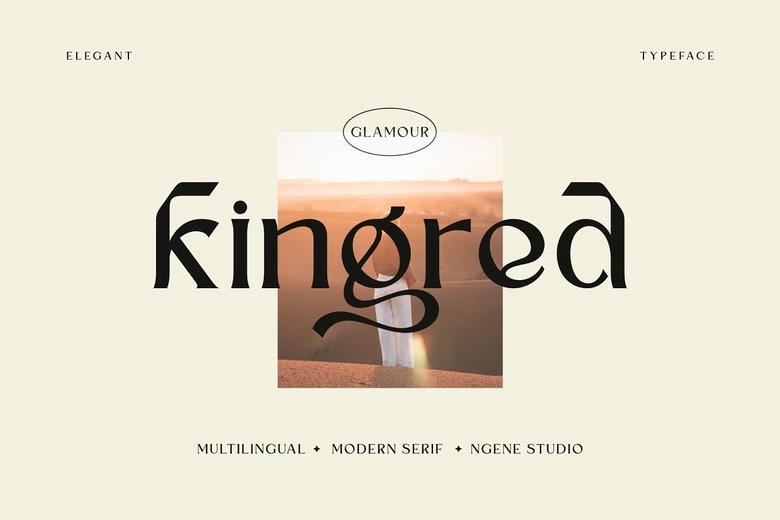
Kingred Font
Kingred is a handmade vintage font that includes serif fonts nest. According to ourselves, western culture, girly design, soft classic with vintage flavor. These font are suitable for logotype, badges, clothing, poster, wedding invitation and many other.
Kingred Serif Font